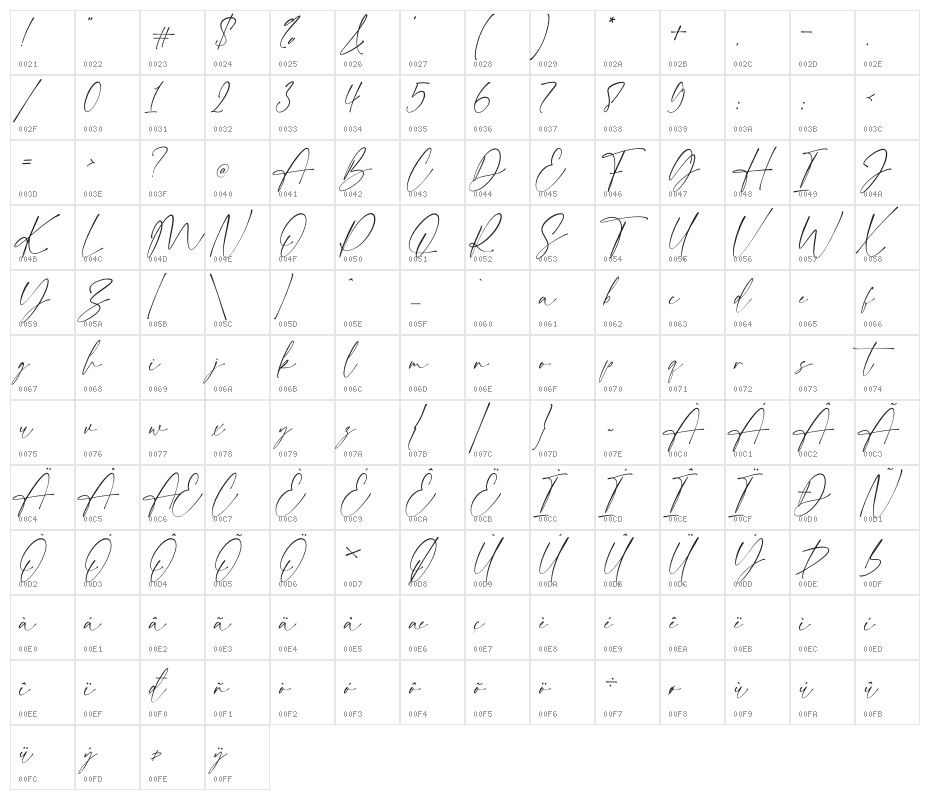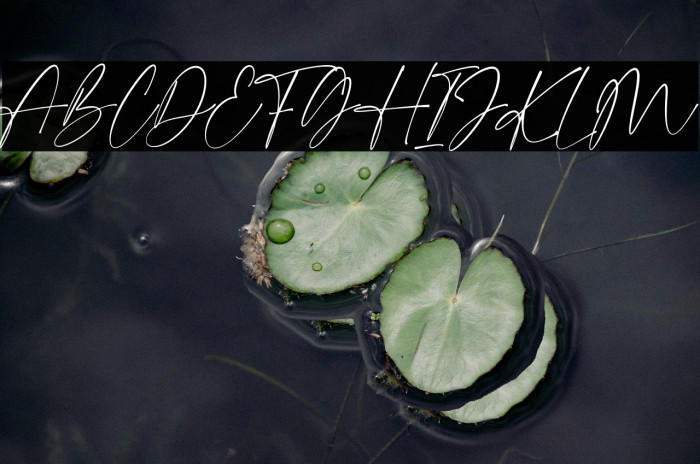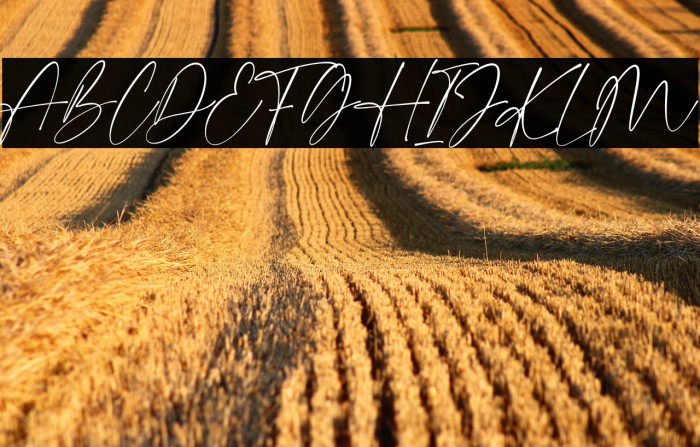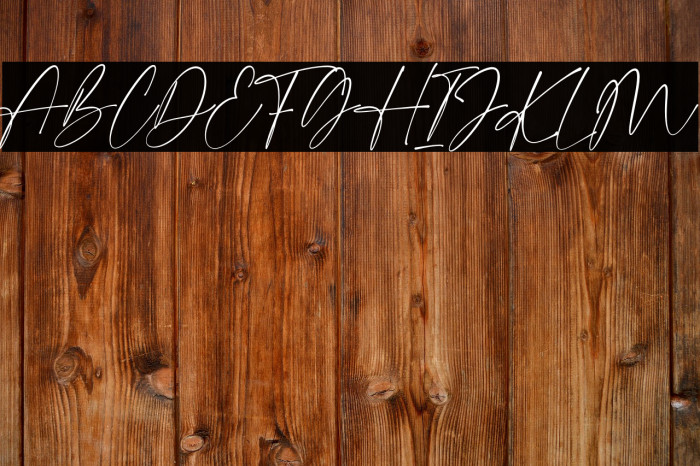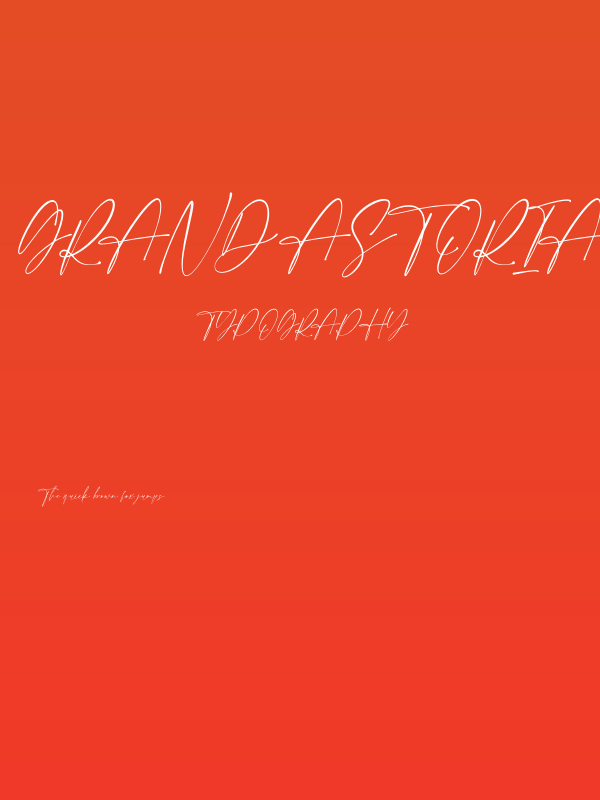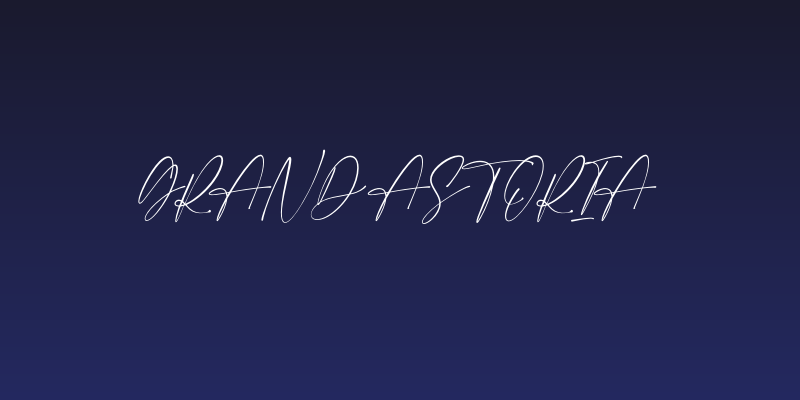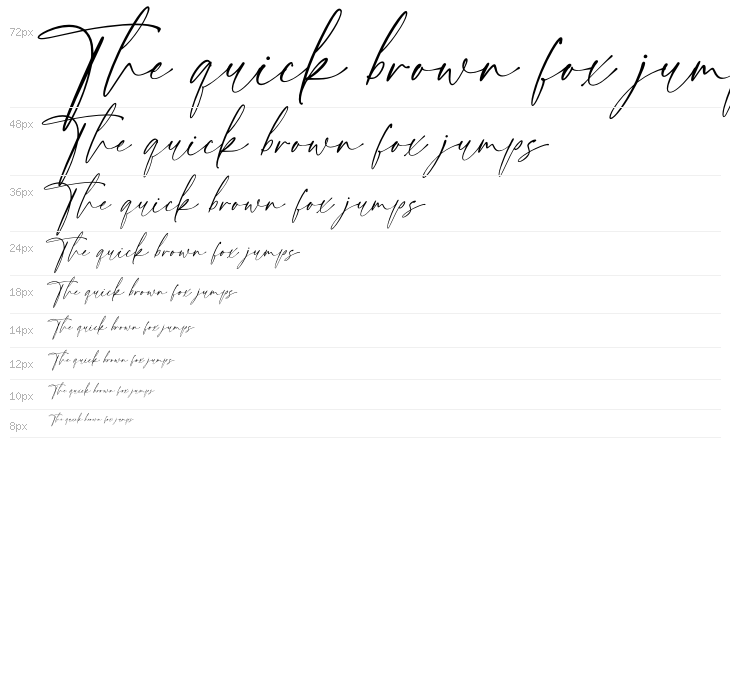
Grand Astoria Font
Grand Astoria Description
This font features an elegant, flowing script style with a handwritten appearance. The characters are connected, giving it a seamless and fluid look. The strokes are thin and delicate, with a consistent slant that adds to its graceful aesthetic. The uppercase letters are slightly larger and more pronounced, while the lowercase letters maintain a uniform height. The numerals and special characters are crafted to match the overall cursive style, ensuring a cohesive appearance across all elements.
| Overall Style | Elegant, Handwritten |
| Proposed Projects | Ideal for wedding invitations, elegant branding, personal stationery, and romantic quotes. |